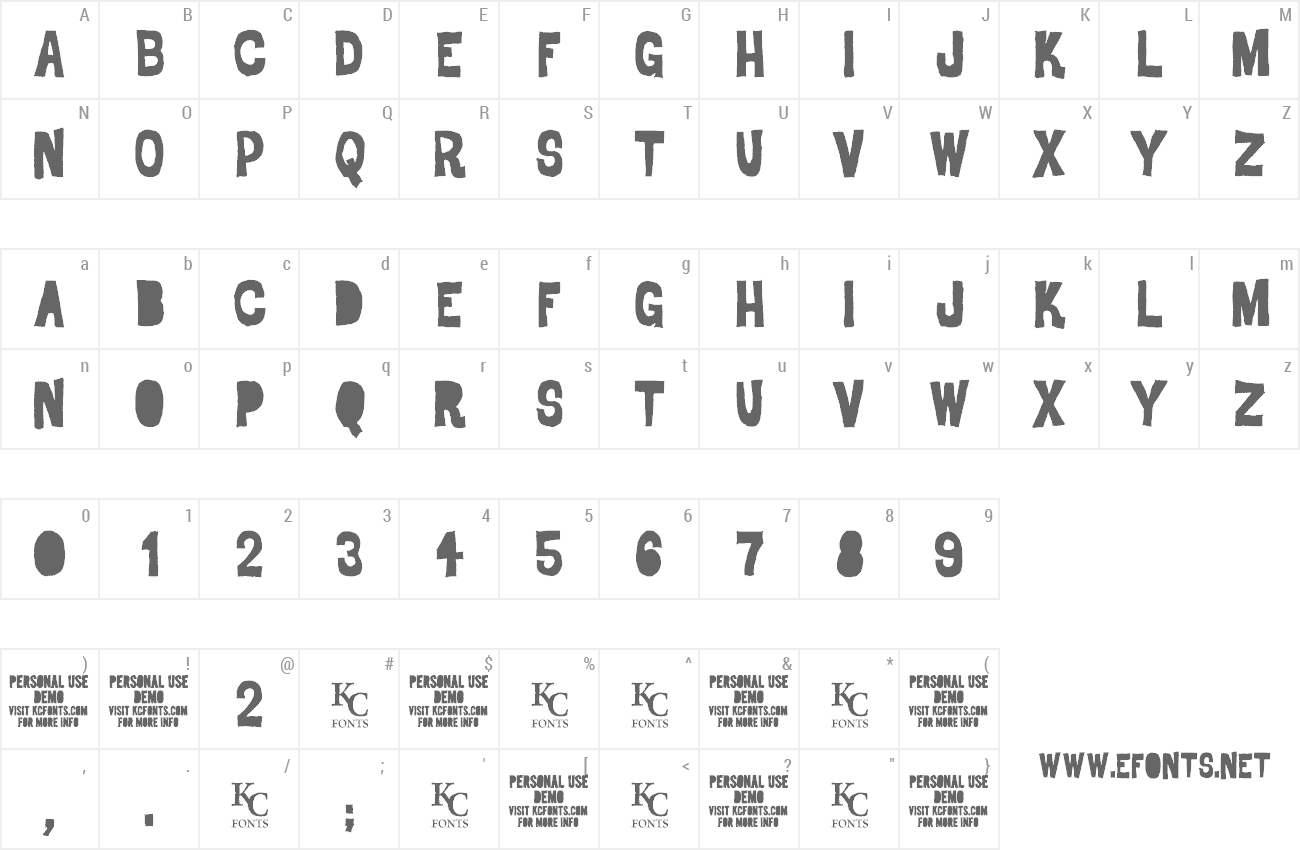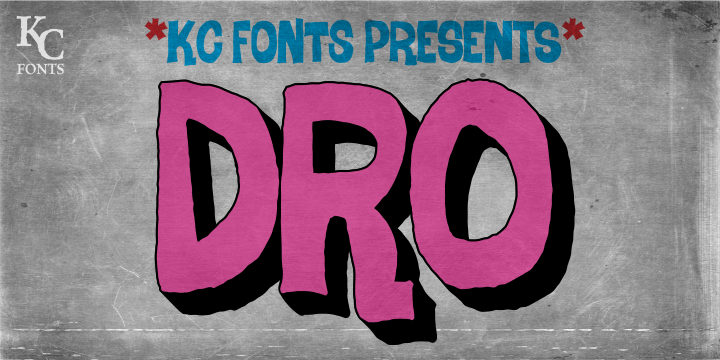
Preview and download Dro Font. Created by KC Fonts in Fancy Cartoon styles with Demo license.
This demo is free for PERSONAL USE ONLY. The full Dro font family is made up of 2 fonts & each font has 550+ glyphs! OpenType features: Contextual Alternates, small Caps, Double Letter Ligatures, Randomization & Stylistic Alternates. Each letter has 6 variations and each number has 2, allowing your work to look authentically handmade. Purchase it here: http://www.myfonts.com/fonts/kcfonts/dro/?refby=KCFonts Please contact kcfonts@gmail.com for more info, donations are also greatly appreciated! Blog: http://www.kcfonts.com Facebook: http://www.facebook.com/KCFonts Twitter: http://www.twitter.com/KCFonts More Fonts: http://www.dafont.com/kevin-christopher.d3302?fpp=50&psize=l MyFonts: http://www.myfonts.com/foundry/KC_Fonts/?refby=KCFonts |